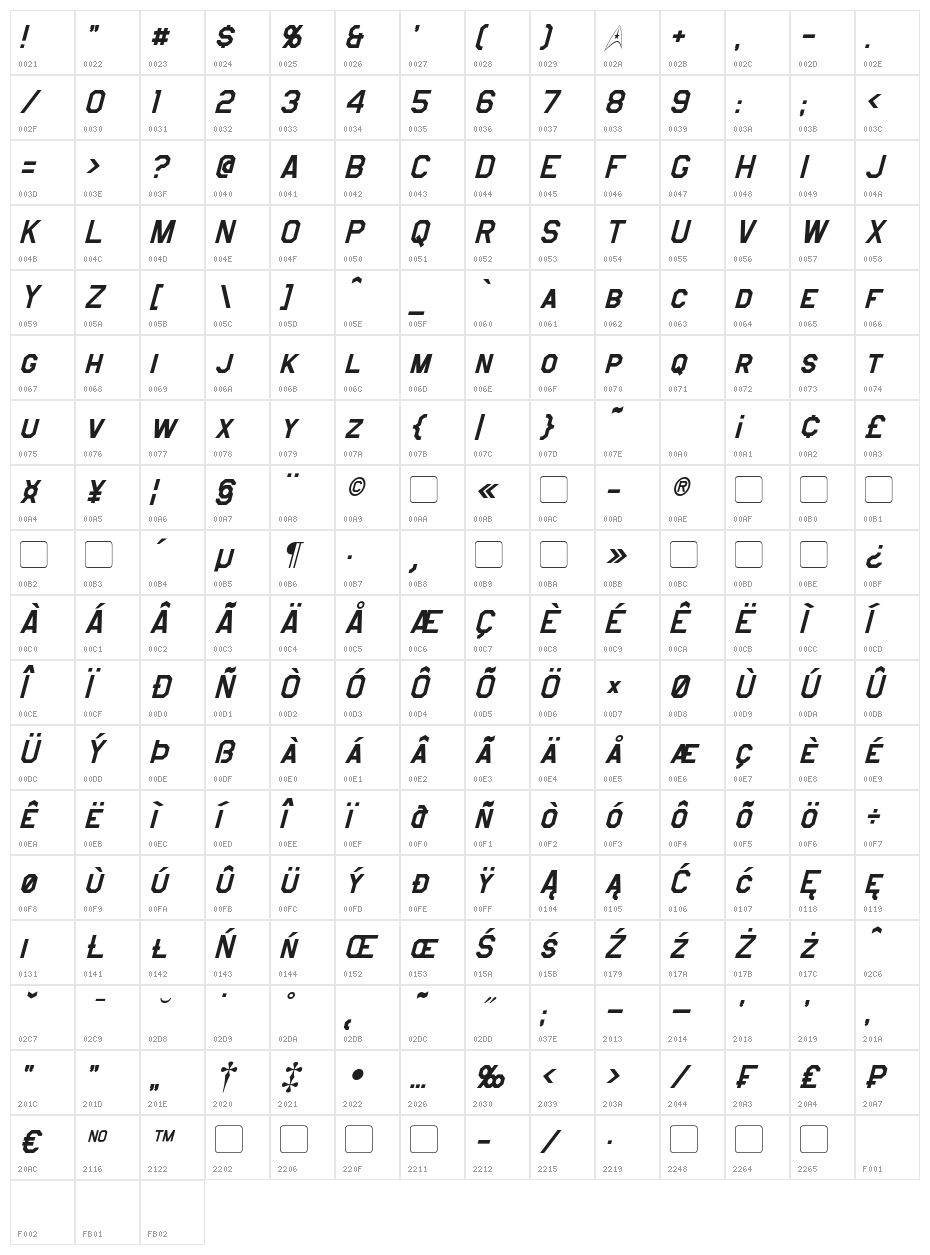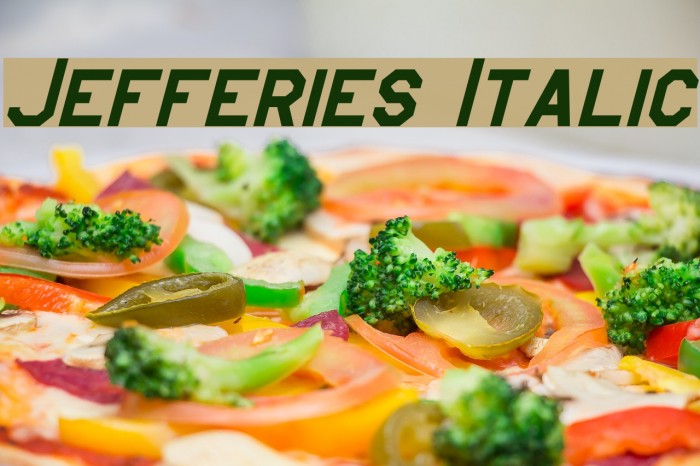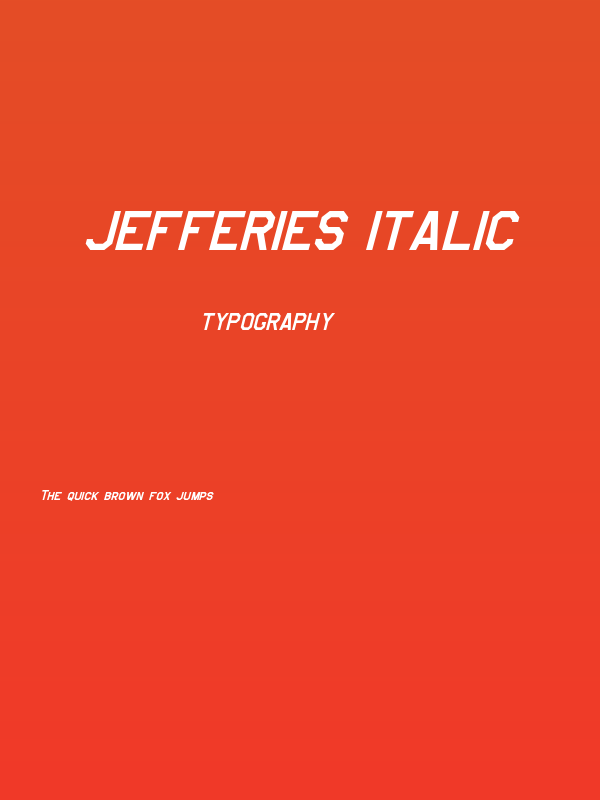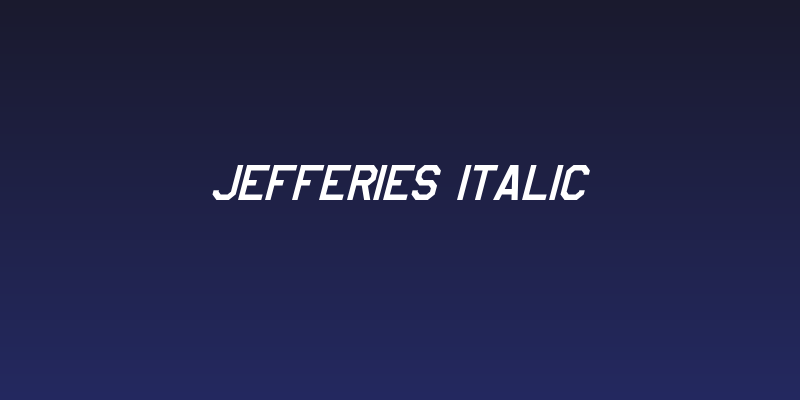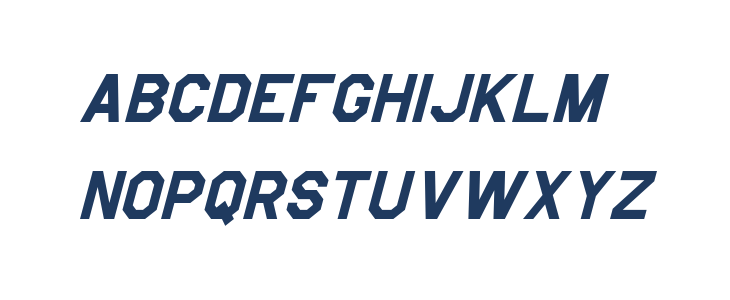
Jefferies Italic Font
Jefferies Italic Description
This font features a bold and italicized style with a futuristic and angular design. The characters are sharply defined with a consistent slant, giving them a dynamic and forward-moving appearance. The uppercase letters are prominent and commanding, while the lowercase letters maintain the same angular aesthetic. Numbers are equally bold and maintain the same slant, ensuring uniformity across all characters. Special characters are stylized to match the overall theme, adding a unique touch to the font's personality.
| Proposed Projects | Ideal for science fiction themes, technology branding, video game titles, and futuristic posters. |